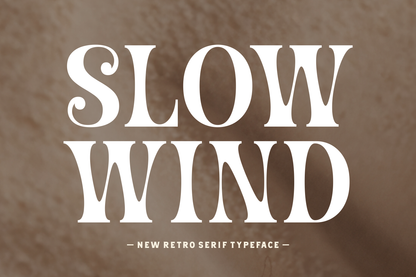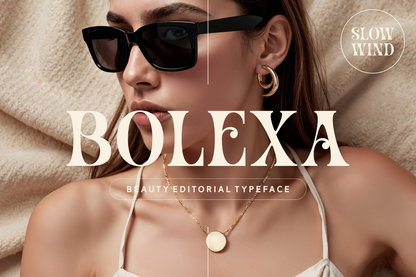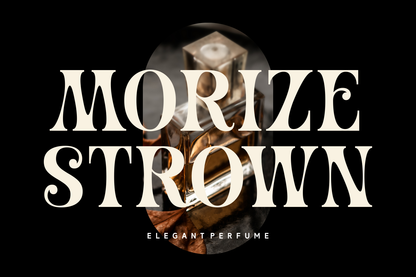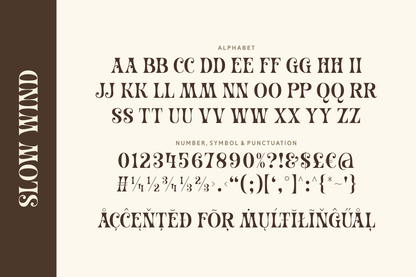
Slow Wind is a bold retro serif font that channels vintage charm with a fresh twist. With its high contrast strokes, rounded terminals, and nostalgic curves, this typeface carries the laid-back spirit of the past while staying polished for modern use. It’s perfect for headlines, throwback branding, and stylish packaging.
Whether you're crafting a retro-inspired label or a bold social media graphic, Slow Wind delivers character and clarity. It's made to stand out, with a mellow rhythm that brings warmth to every design it touches.